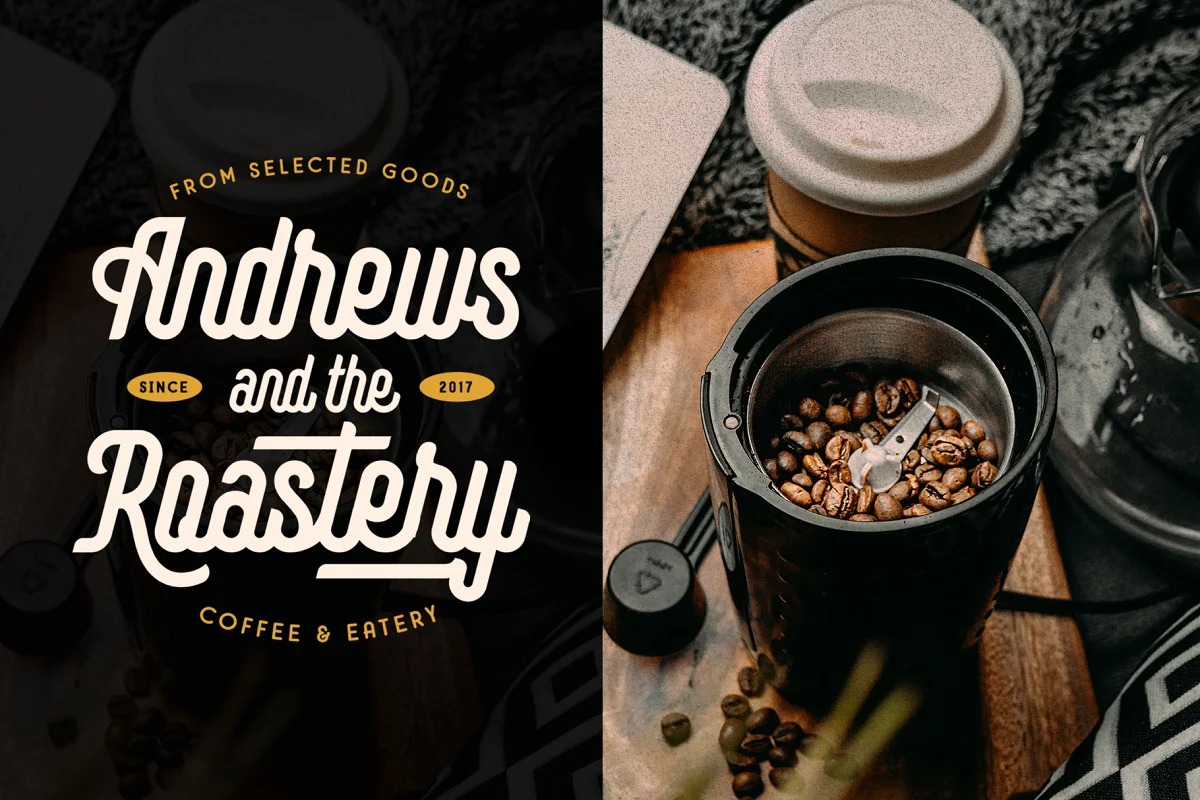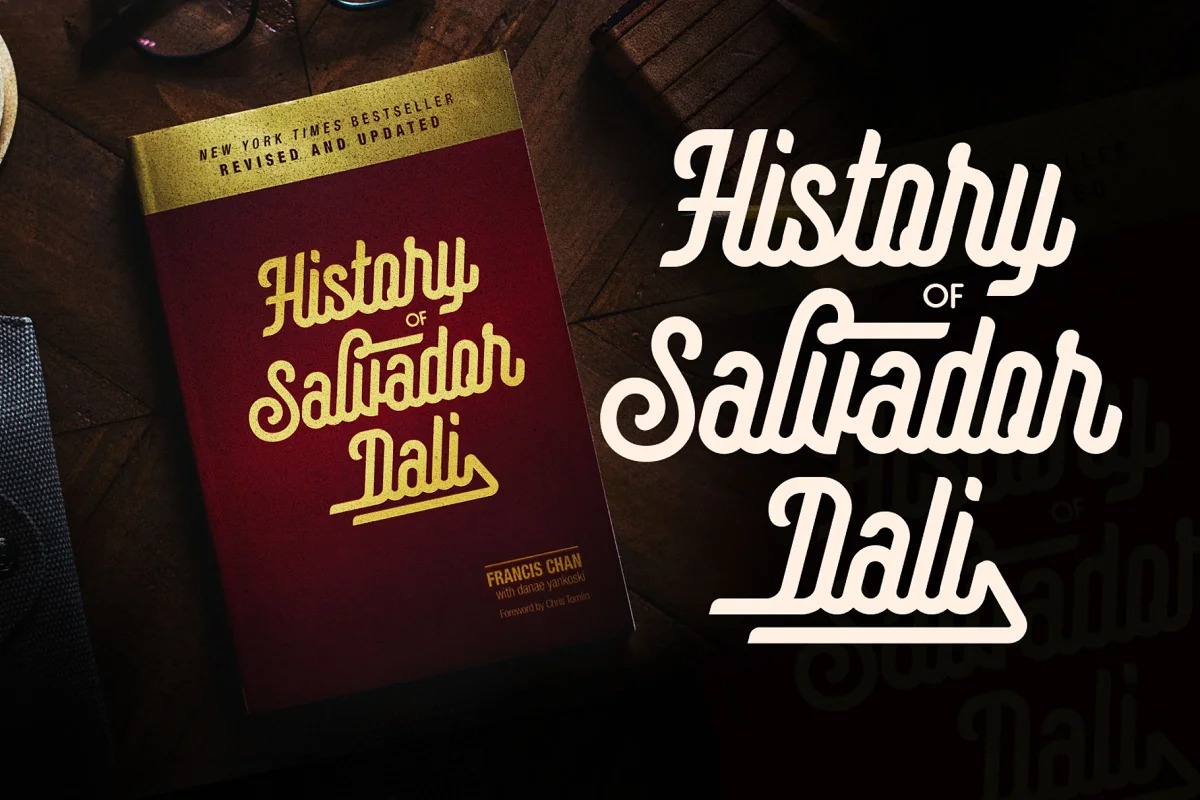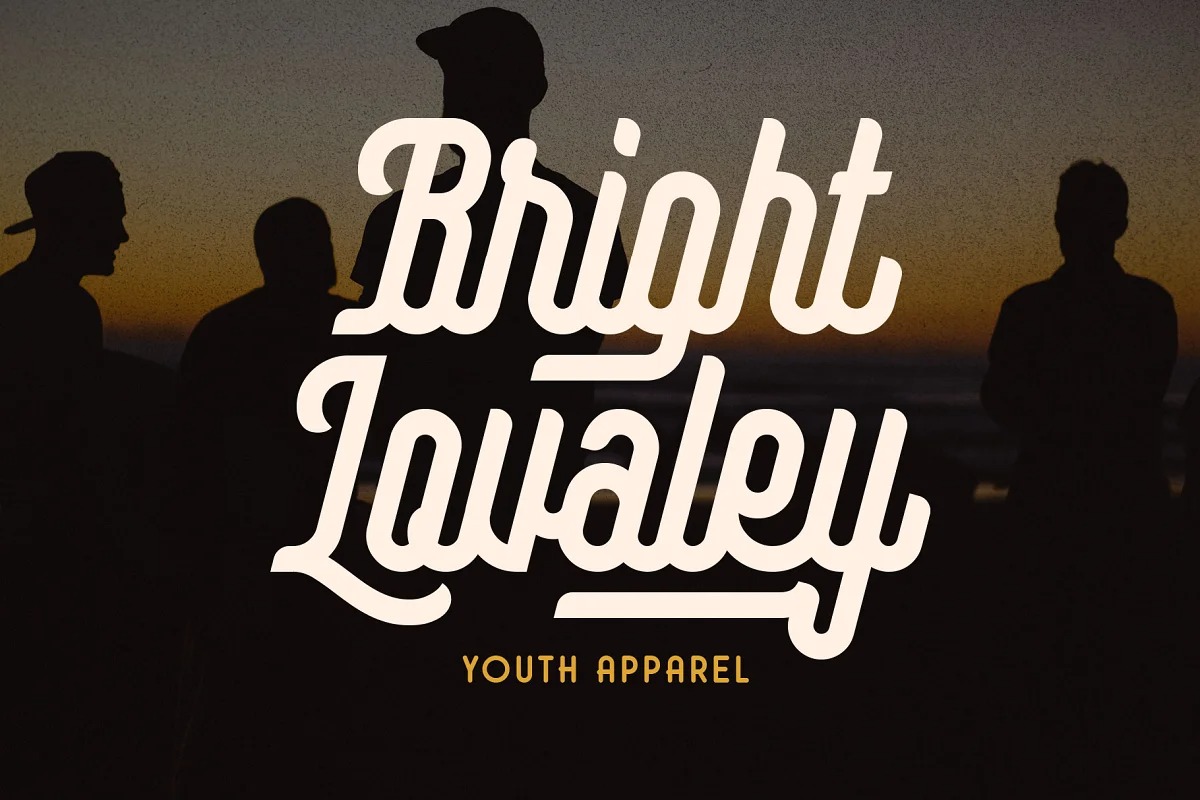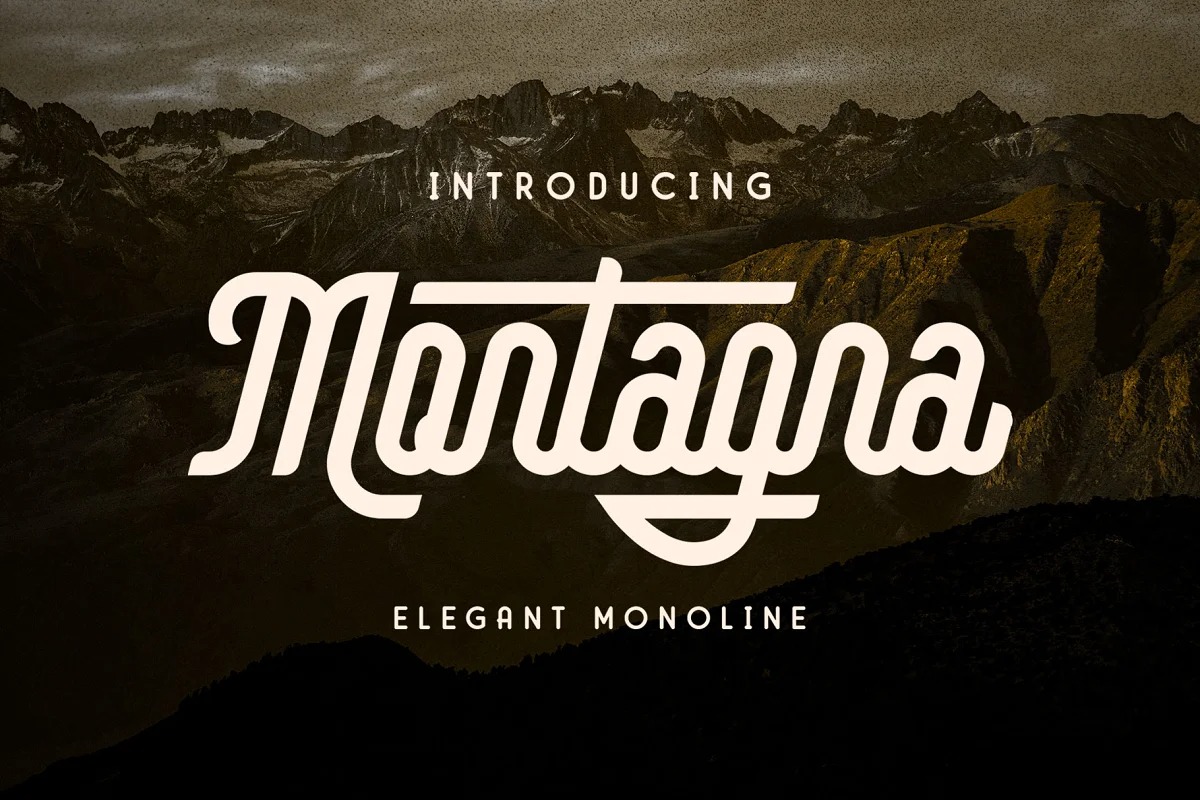
Montagna Script Font
It’s a neat and vintage styled monoline font from designer Arterfak Project. Inspired by a retro poster from the 80s, old-school neon-sign, and modern-vintage design.
Montagna is a versatile font that you can use for any styles of such as funky, retro, techno, modern, minimalist, and many more! Equipped with straight swash to give you the more elegant looks and a lot of alternates characters that allow you to make the brilliant combination of typography.